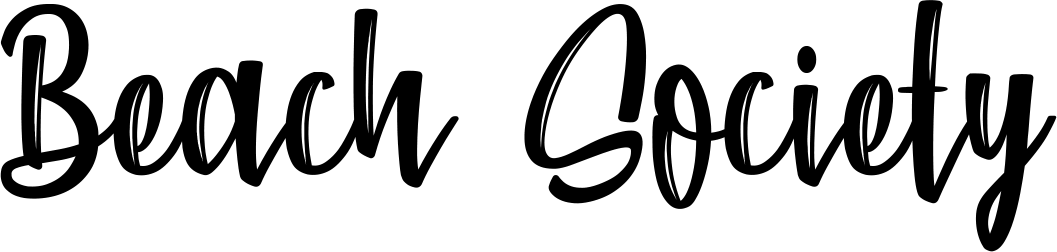
Script fonts such as Beach Society are excellent choices for pointing out the contemporary and approachable essence of what you’re trying to promote through your typography.
Now choose a brush font and you’ve got style added to the equation and thus a successful communication is in the bag. Beach Society with its cursive handwritten design works well for letters, cards, website graphics, or else as long as it’s a modern interface you desire and little you care about readability.